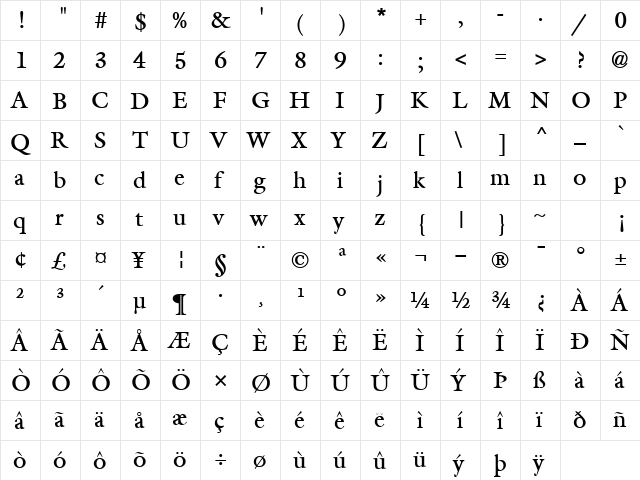
Coverdale Bold Font Preview
Coverdale Bold
Design Context for Coverdale Typeface
Coverdale takes a measured approach to typography — its balanced proportions and neutral character make it a reliable workhorse for both digital and print work. Its bold stroke weight gives it real presence on the page.